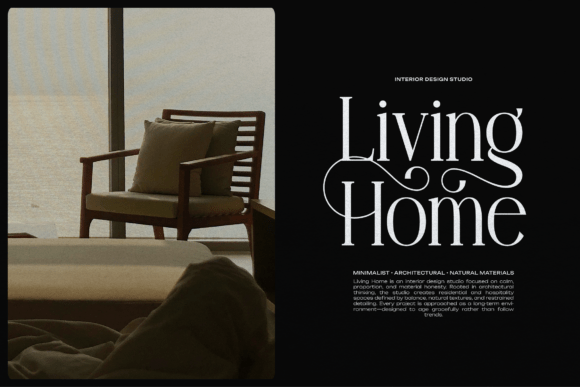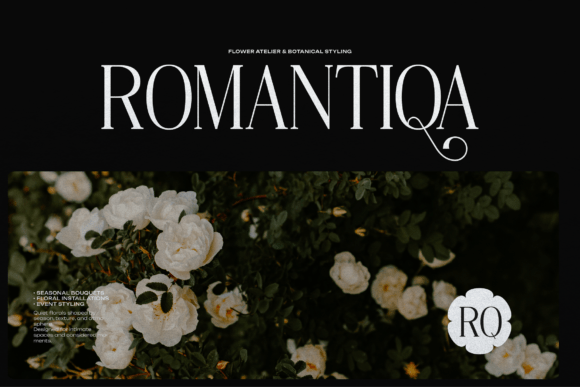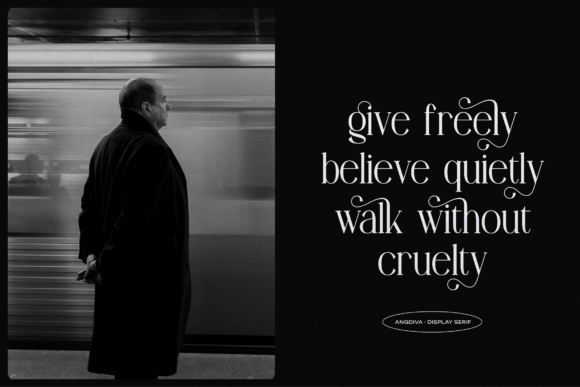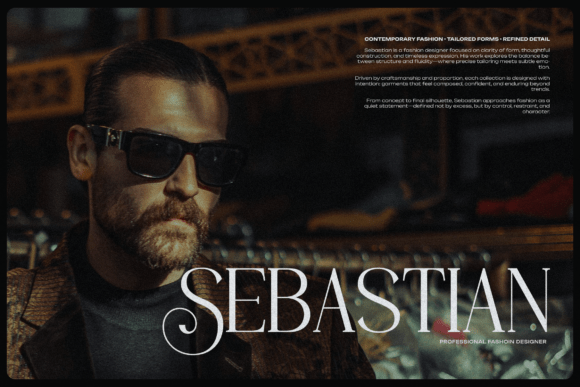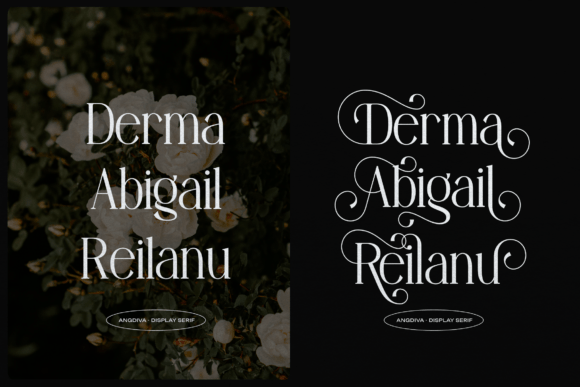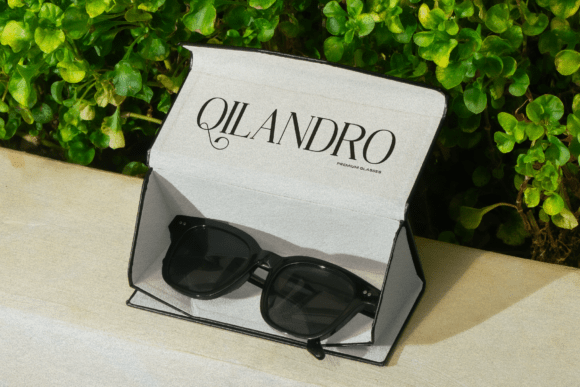
Introducing Angdiva Font: Elevate Your Brand with Classical Elegance and Modern Flair
In the world of typography, few fonts manage to strike a balance between timeless elegance and modern sophistication. Angdiva font is one such exceptional typeface that seamlessly blends classical beauty with contemporary decorative elements. Designed to make a statement, Angdiva is the perfect choice for high-end branding, luxury packaging, and premium editorial projects.
The Essence of Angdiva Font
Angdiva font is a celebration of classical beauty infused with modern decorative flair. Its high-contrast strokes and breathtaking, sweeping flourishes transform standard letters into ornate works of art. This distinctive feature makes Angdiva stand out in the realm of typography, offering a unique aesthetic that is both sophisticated and eye-catching.
Ideal Applications for Angdiva Font
Given its luxurious and elegant design, Angdiva font is tailor-made for high-fashion editorial, luxury product packaging, and premium event stationery. Whether you’re working on a fashion magazine, a luxury brand’s advertising campaign, or the packaging of a high-end product, Angdiva can add a touch of sophistication and glamour to your project.
High-Fashion Editorial
In the world of fashion, presentation is everything. Angdiva font, with its elegant strokes and decorative flourishes, can elevate the visual appeal of any fashion editorial. From enhancing the title pages of a luxury fashion magazine to adding a touch of class to designer profiles, Angdiva can make your content stand out.
Luxury Product Packaging
For luxury brands, packaging is not just about protecting the product; it’s an extension of the brand’s identity and values. Angdiva font, with its high-end aesthetic, can be used to create stunning perfume labels, jewelry branding, and more. Its unique and elegant design ensures that the packaging reflects the luxury and quality of the product inside.
Premium Event Stationery
When it comes to premium events, such as weddings or corporate gatherings, the stationery sets the tone for the event. Angdiva font can be used to create exquisite wedding invitations, event programs, and thank-you cards that exude elegance and sophistication.
Key Features of Angdiva Font
One of the standout features of Angdiva font is its extended character options and intricate ligatures. This means that designers have a wide range of creative possibilities at their fingertips, allowing them to craft one-of-a-kind wordmarks that can instantly elevate a brand’s perceived value and aesthetic charm.
Extended Character Options
The extended character set of Angdiva font includes a variety of characters that can be used to create unique and personalized text. This feature is particularly useful for branding projects where distinctiveness is key.
Intricate Ligatures
Ligatures in typography refer to the connection between two or more letters that are designed to fit together perfectly. Angdiva font’s intricate ligatures add an extra layer of elegance and fluidity to the text, making it perfect for high-end branding and editorial projects.
Tips for Using Angdiva Font Effectively
To make the most of Angdiva font, consider the following tips:
- Pair with Simplicity: While Angdiva is ornate, pairing it with a simpler font for body text can create a balanced and harmonious design.
- Experiment with Ligatures: Take advantage of Angdiva’s ligatures to add a unique touch to your text.
- Consider the Color Scheme: Elegant fonts like Angdiva are often complemented by a sophisticated color palette. Stick to classic combinations like black and white, or metallic tones for a luxurious feel.
Angdiva font is more than just a typeface; it’s a statement of elegance, sophistication, and luxury. Its unique blend of classical beauty and modern decorative flair makes it the perfect choice for designers and crafters looking to elevate their high-end projects. Whether you’re working on luxury packaging, fashion editorials, or premium event stationery, Angdiva font offers the versatility and aesthetic appeal needed to create truly memorable designs.